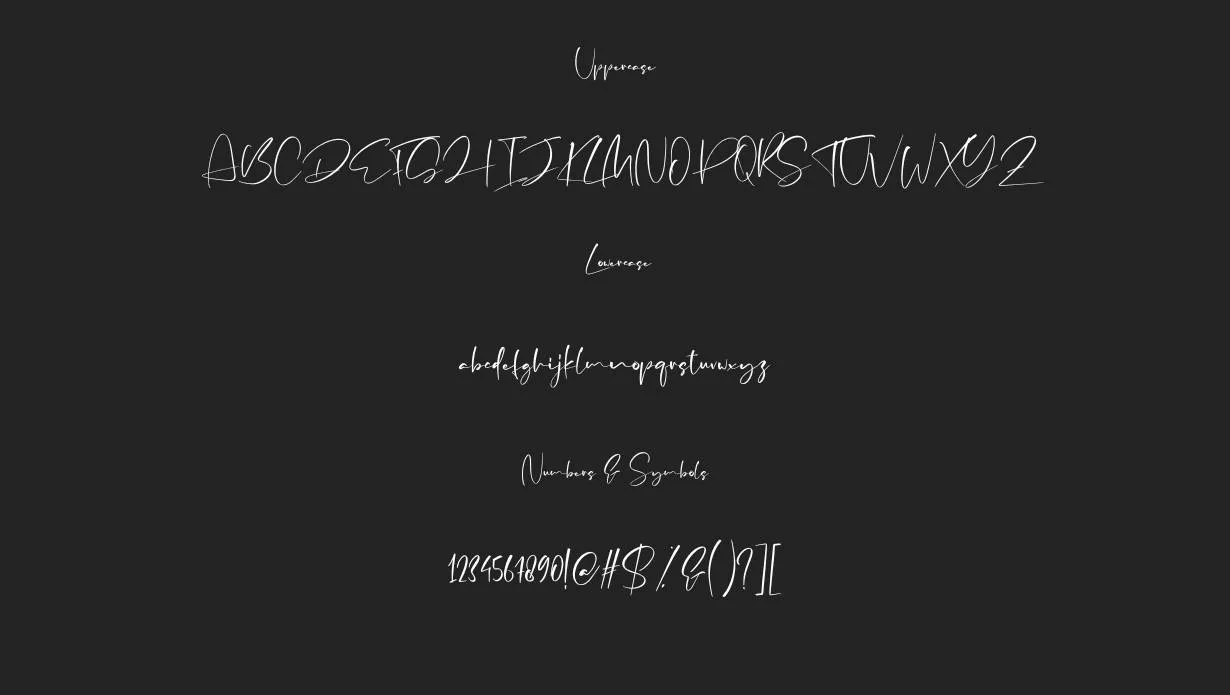
Tefang Island font emanates a relaxed and tropical aura, making it a frequent choice in vacation-themed designs, beach posters, or projects seeking a carefree, beachy appearance.
| Name | Tefang Island Font |
| Designer | Amalia Kamrah Co. |
Its playful and breezy style evokes the essence of summer and leisure, perfect for creating a chill and laid-back atmosphere in designs associated with tropical paradises. Enhance the appeal of your design project by combining this font with another distinctive typeface, such as the simplicity font.